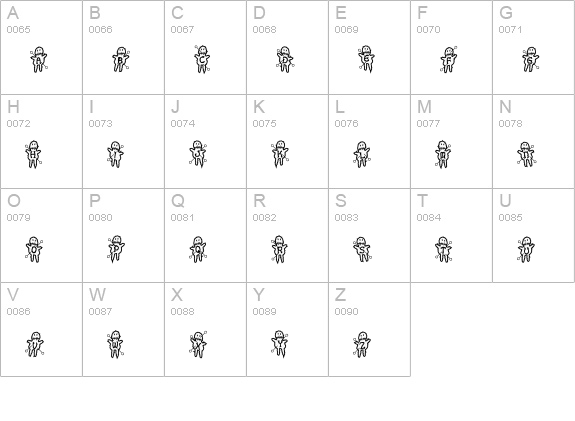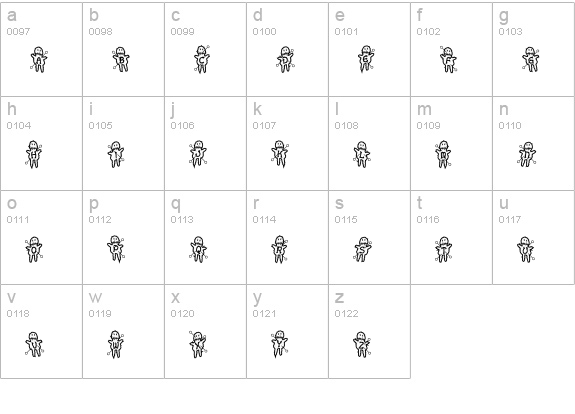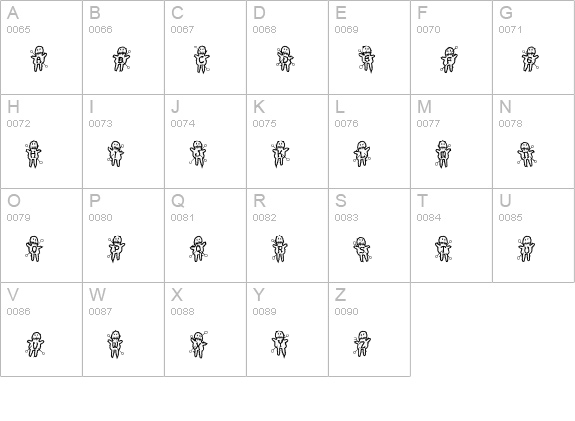
VoodooDollsPinned Font Details
VoodooDollsPinned font is a captivating and mysterious typeface that brings a touch of enchantment to your designs. With its intricate and slightly jagged letterforms, this font evokes a sense of dark magic and supernatural allure. Designed with meticulous attention to detail, VoodooDollsPinned font is perfect for adding a touch of the occult to your projects. Whether you're working on a Halloween-themed design, a gothic-inspired poster, or a mystical logo, this font will bring an eerie and captivating element to your work. The letters of VoodooDollsPinned font have been intricately crafted to resemble the pins used in voodoo dolls, giving the font a unique and visually striking appearance. Each letter has been meticulously shaped and detailed, resulting in a font that is both visually appealing and highly readable. One of the best aspects of VoodooDollsPinned font is that it is freely available to download at FontsMarket.com. This means that you can easily access and use this font in your projects without any restrictions. Whether you're a professional designer or a hobbyist, this font allows you to unleash your creativity and bring your ideas to life. So, if you're looking to add a touch of magic and intrigue to your designs, look no further than VoodooDollsPinned font. Download it for free at FontsMarket.com and let your imagination run wild.